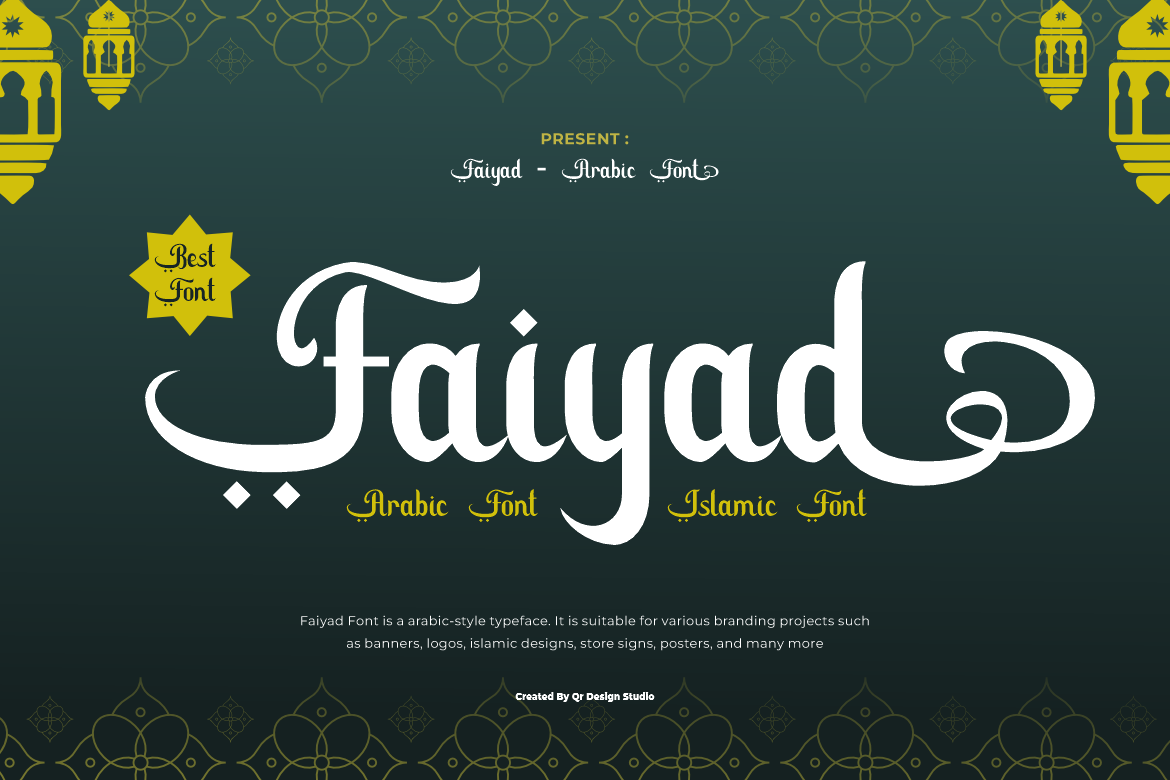
Faiyad - Arabic Ramadhan Font
Faiyad Font is a best and authentic display typeface. It’s perfect for various branding projects such as logos, arabic designs, and more. This font stands out beautifully in a wide range of contexts.